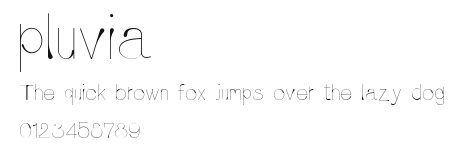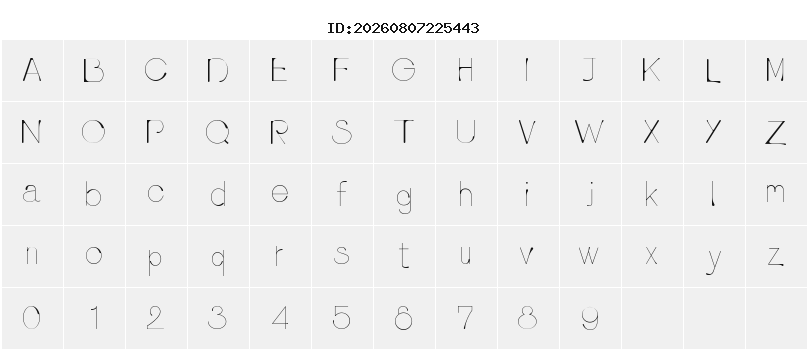
• Font Name: pluvia
• Designer: Grant Milne
pluvia.ttf is a modern, elegant sans-serif font designed for ultimate readability and visual harmony. Perfect for branding, headlines, web design, and print materials.